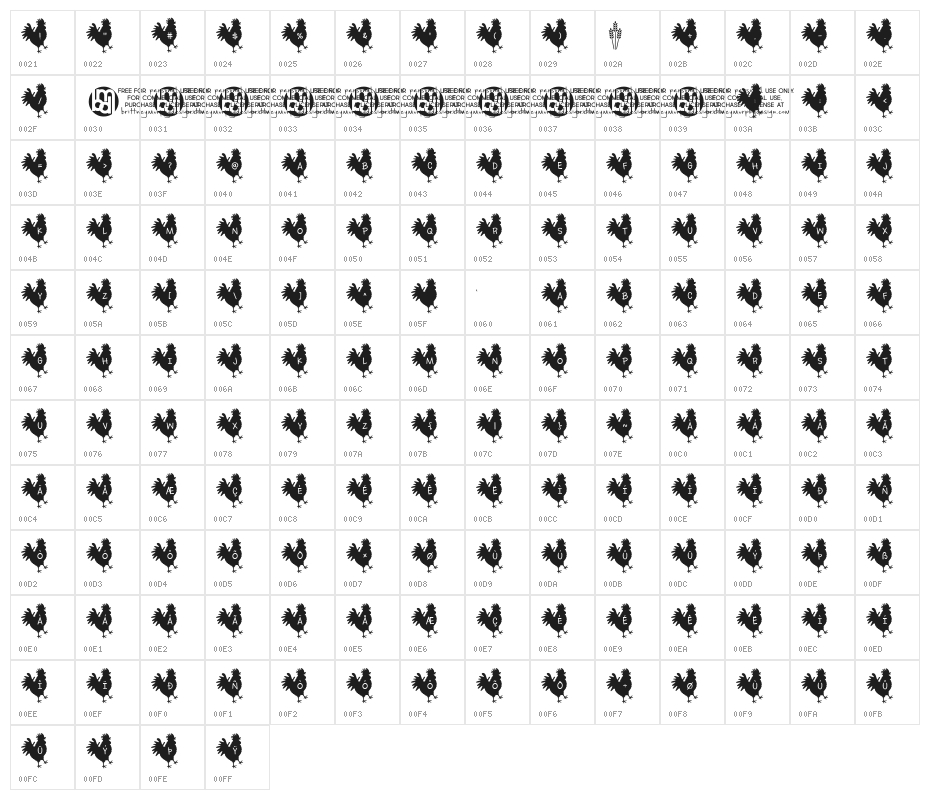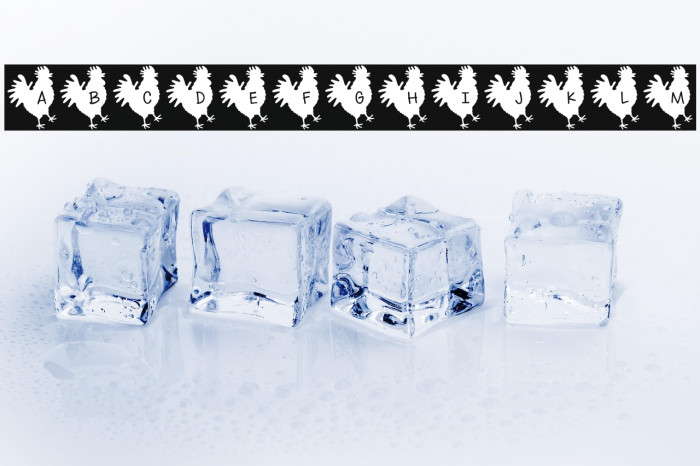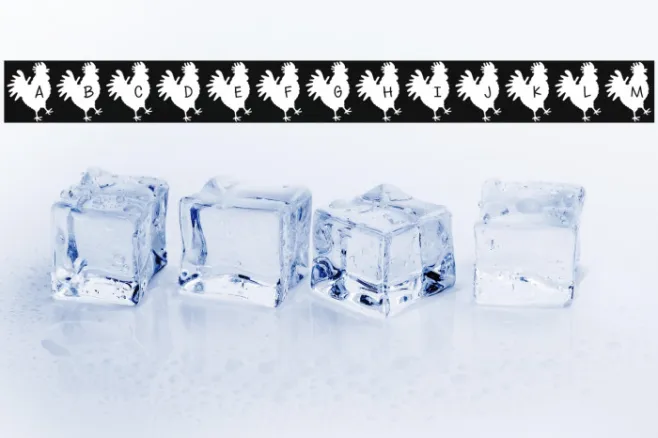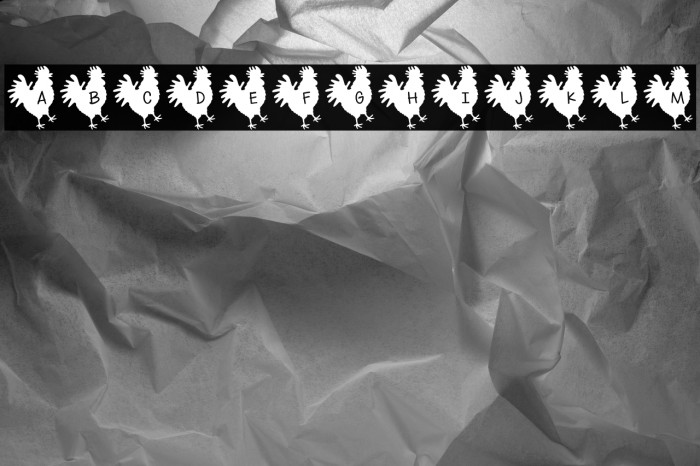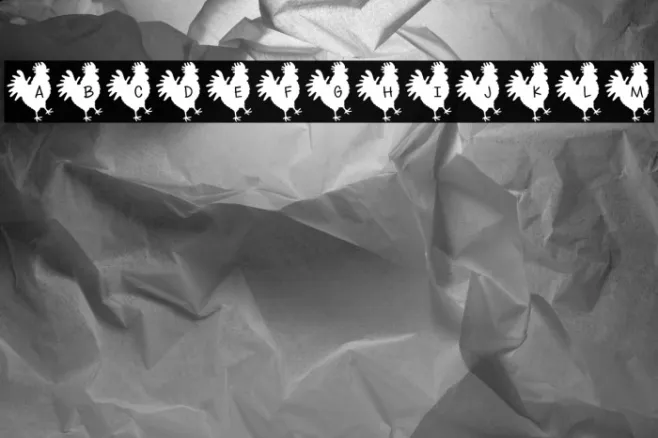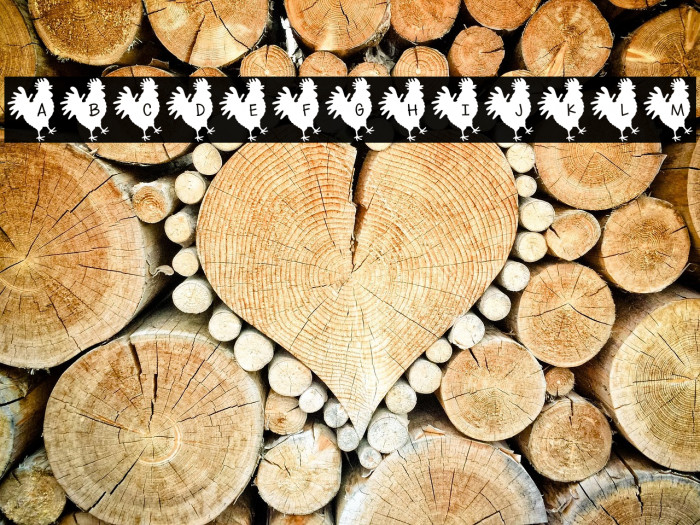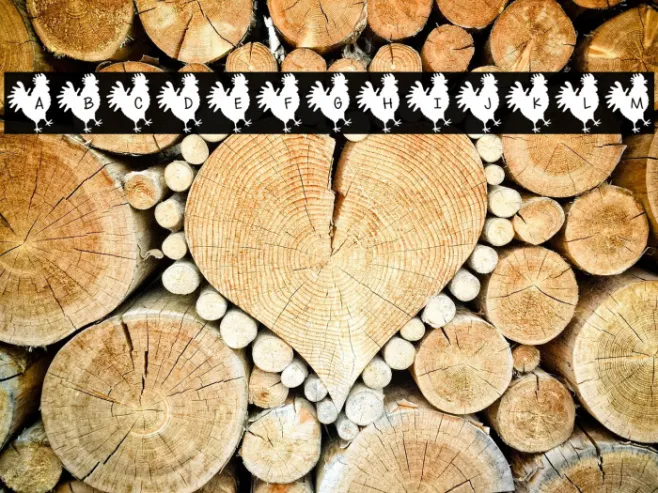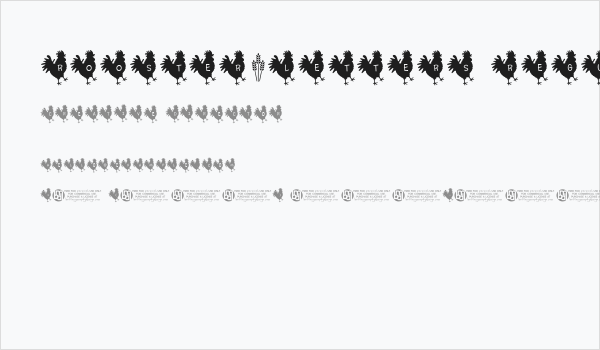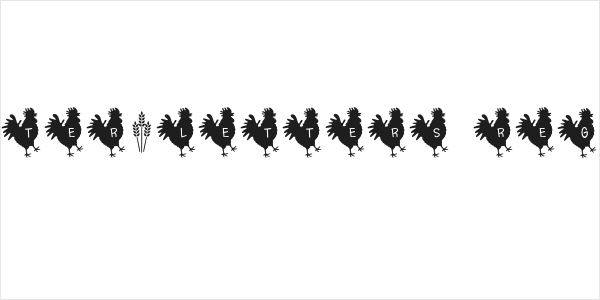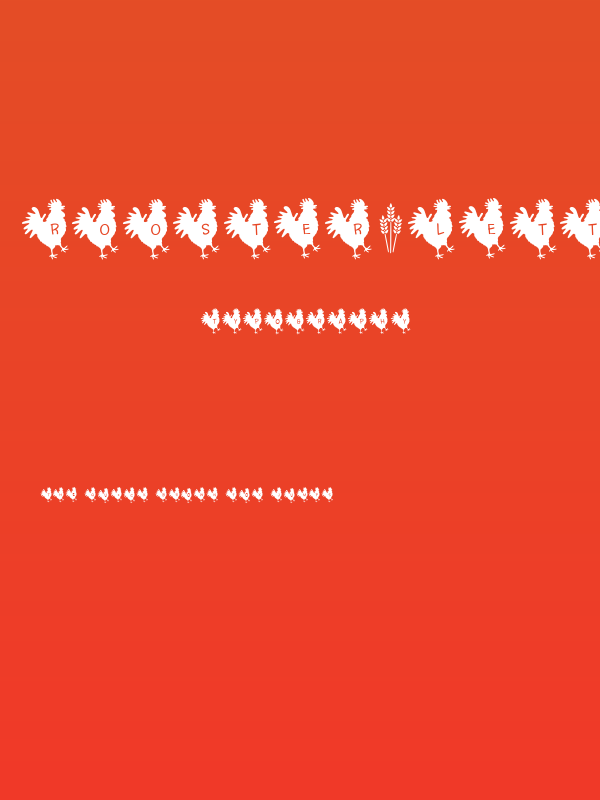
Rooster*Letters Regular Font
Rooster*Letters Regular Description
This unique font features each character embedded within the silhouette of a rooster, creating a playful and decorative appearance. The letters are bold and clearly legible, despite being part of a complex design. The font maintains consistency across uppercase, lowercase, and special characters, all of which are housed within the rooster shape. This design choice gives the font a whimsical and thematic style, perfect for projects that require a touch of creativity and fun. The characters are evenly spaced, ensuring readability while maintaining the decorative aspect.
| Proposed Projects | Ideal for children's books, themed event invitations, farm-related branding, or playful graphic design projects. |